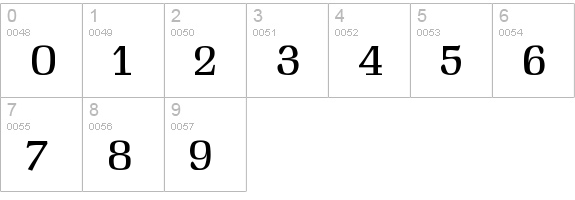
Antikva Regular is the standard, neutral variant in the Antikva typeface family \xE2\x80\x94 well suited to general body text, paragraphs, and standard typographic work.
Antikva Regular font is a timeless and elegant typeface that combines classic serifs with a modern twist. With its clean lines and balanced proportions, this font exudes a sense of sophistication and professionalism. The versatile design makes it suitable for a wide range of applications, from editorial projects to branding and signage. What makes Antikva Regular font even more appealing is that it is available for free download at FontsMarket.com. This means that you can access this high-quality typeface without any cost, making it a valuable addition to your font library. Whether you are a designer looking for a reliable serif font or a business owner seeking a polished look for your communications, Antikva Regular is the perfect choice. Download it today and elevate your projects with this exquisite font.